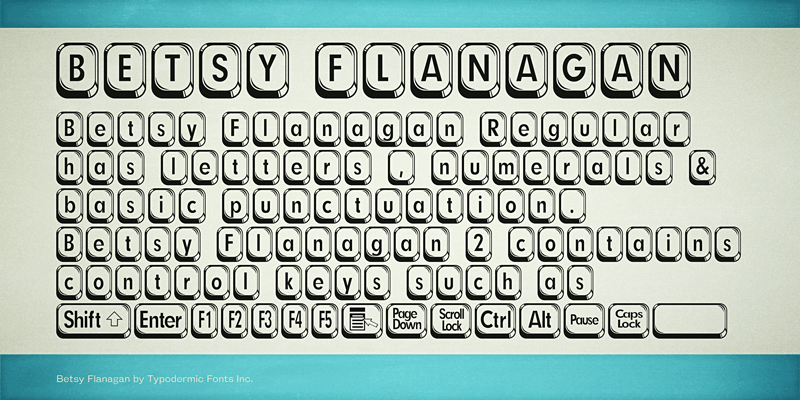
Preview and download Betsy Flanagan Font. Created by Typodermic Fonts in Fancy Decorative styles with 100% Free license.
Betsy Flanagan is a display font which looks like computer keyboard keys. Betsy Flanagan 2 includes control characters such as shift, enter, control, escape etc. These fonts include a license that allows free commercial use: sometimes referred to as a desktop license. This allows you to install the fonts on a computer and use them to create posters, web graphics, game graphics, t-shirts, videos, signs, logos and more. Read the license agreement for details. If you'd like to embed these fonts in an app, ebook, on the web or anything that's not covered by the desktop license agreement, visit the link below. You'll find distributors who offer different types of licenses or you can contact me for help. http://typodermicfonts.com/betsy-flanagan/ |